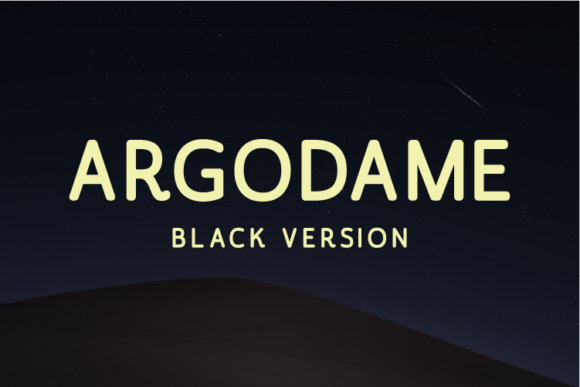
The Perfect Blend of Modernity and Friendliness
Remember that moment when you’re working on a project, and you just can’t seem to find the right font to convey the emotions you want to express? You’ve tried countless options, but nothing seems to fit quite right. That’s when I discovered the magic of the Argodame Black Font.
This beautiful rounded sans serif font is more than just a pretty face – it’s a game-changer for designers looking to add a touch of modernity and friendliness to their work. With its soft terminals and classic proportions, the Argodame Black Font is the perfect choice for everything from headlines and logotypes to books, magazines, and motion graphics.
Argodame Black Font Key Features
- Font Family: Argodame Black, a sans-serif font with a bold and modern design.
- Unique Characteristics: Argodame Black features a distinctive, bold design with clean lines and a strong x-height, making it ideal for headings, titles, and body text in modern designs.
- Font Weight: A single font file with multiple weights, including Regular, Bold, and Black, allowing for easy font styling and customization.
Review of Argodame Black Font
Overall, I think Argodame Black Font has a lot of potential, but it’s not without its flaws.
- ✨ The bold and edgy design aesthetic of Argodame Black Font makes it perfect for creating a strong brand identity or adding some much-needed drama to a design project.
- ✨ The font is highly customizable, allowing designers to easily adjust the weight, spacing, and other properties to suit their needs.
- ✨ The font is highly legible, even at small sizes, making it a great choice for body text or other situations where readability is a top priority.
- ⚠️ The font can feel a bit overused or clichéd in certain contexts, which may limit its appeal for designers looking for something truly unique.
- ⚠️ The font may not be suitable for projects that require a more subtle or understated design approach.
- ⚠️ Some users have reported issues with compatibility on certain operating systems or devices.
Overall, I think Argodame Black Font is a solid choice for designers who are looking for a bold, eye-catching font to add some visual interest to their projects. While it may have some limitations, its strengths make it a great option for certain design applications.
Argodame Black Font is commonly used for:
- Headings and titles in design projects.
- Creating bold and dramatic effects in typography.
- Adding a touch of sophistication to branding materials.
Tips for Getting the Most Out of Argodame Black Font
To get the most out of Argodame Black Font, try the following:
- Pair it with a clean and minimalist design to create a striking contrast.
- Use it in combination with other bold fonts to create a dynamic typography effect.
- Experiment with different font sizes and
Alternatives to Argodame Black Font
1. Rockwell Font
The Rockwell Font is a serif typeface that is similar to Argodame Black Font in its bold and classic appearance. It is ideal for use in formal and professional settings such as business cards, resumes, and brochures. Compared to Argodame Black Font, Rockwell Font has a more traditional and timeless feel.
2. Bodoni Black Font
The Bodoni Black Font is a bold and elegant serif typeface that is similar to Argodame Black Font in its luxurious and high-end appearance. It is ideal for use in high-end fashion, luxury goods, and fine art publications. Compared to Argodame Black Font, Bodoni Black Font has a more dramatic and sophisticated feel.
3. Clarendon Font
The Clarendon Font is a serif typeface that is similar to Argodame Black Font in its classic and timeless appearance. It is ideal for use in newspapers, magazines, and other publications where a clear and readable font is necessary. Compared to Argodame Black Font, Clarendon Font has a more understated and traditional feel.